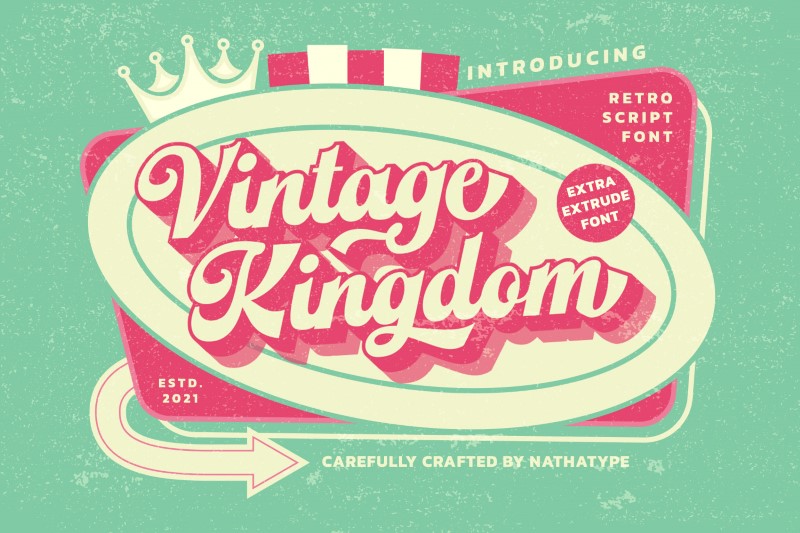
Would you like a stylish font? We have it for you. Let’s meet, Vintage Kingdom.
Vintage Kingdom is a script font designed in solid strokes and thick outlines to give a strong retro touch. The geometric lines make this font seem futuristic.
- Stylistic Sets
- Swashes
- Multilingual Support
- Numerals and Punctuation
Vintage Kingdom fits best for various designs, such as posters, banners, logos, book covers, headings, printed products, merchandise, social media, and more. Find out more ways to use this font by taking a look at the font preview.